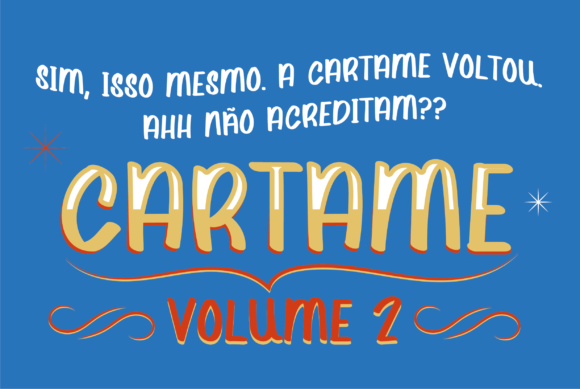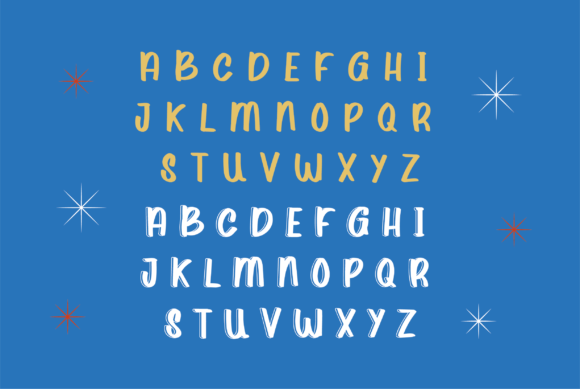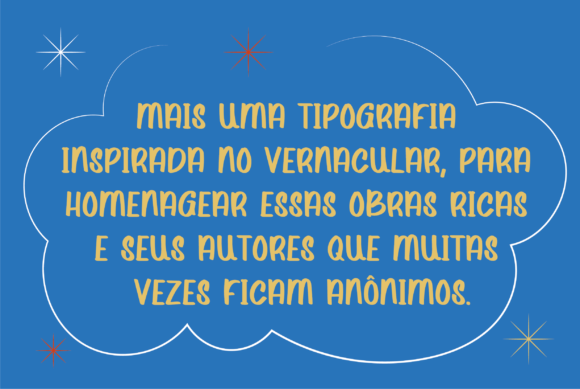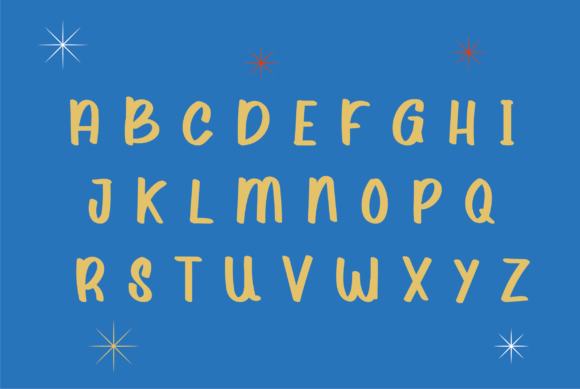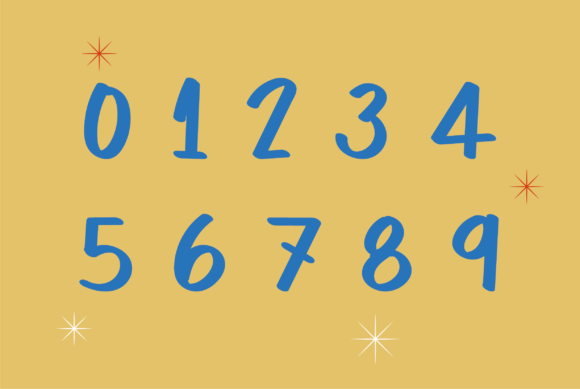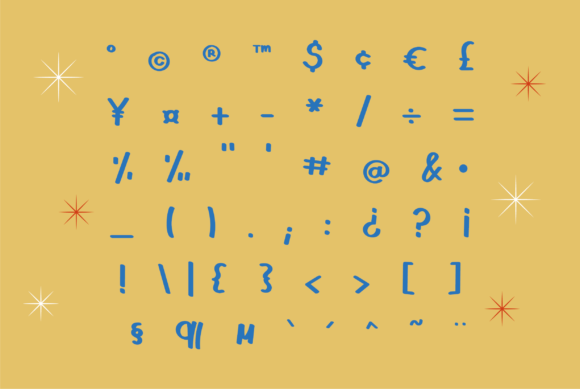
Cartame Volume 2 Font
About Cartame Volume 2 Font
Cartame Volume 2 is a smooth and friendly handwritten font. Use this gorgeous and unique font to bring any DIY project to life!